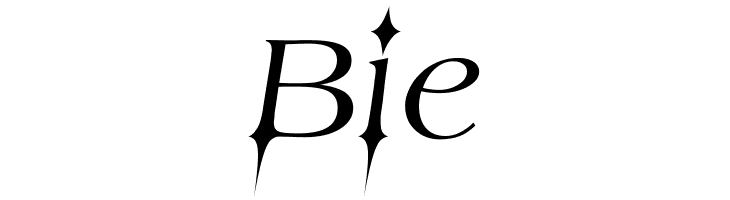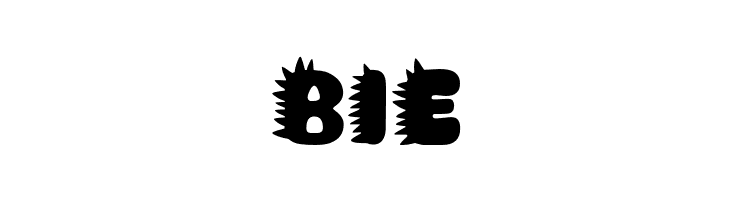
A bold, thorny font with sharp, jagged edges for dramatic impact.
A striking, edgy font with sharp serifs and high contrast strokes.
An edgy, thorny font with sharp, jagged edges for a bold look.
A bold, playful font with spiky, hedgehog-like accents on uppercase letters.
A bold, spiky font with a tribal and fantasy-inspired design.
A playful, dinosaur-inspired decorative font with bold, spiky characters.
A decorative, thorny, and italicized font with a bold and edgy appearance.
A bold, dinosaur-themed font with spiky, decorative letters.
A bold, decorative font with gothic and bubble-like elements, featuring high contrast and intricate detailing.
A bold, decorative Halloween-themed display font with playful, spooky details.